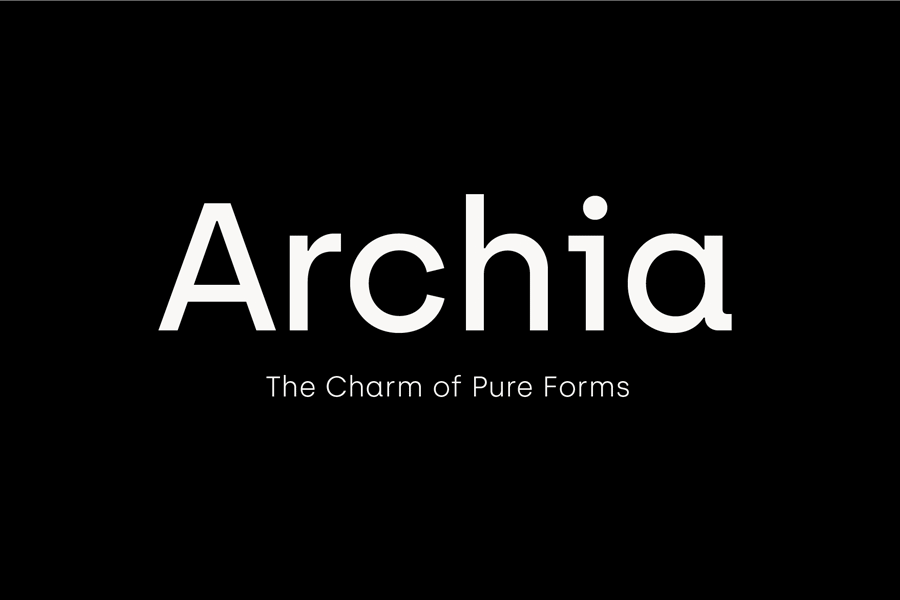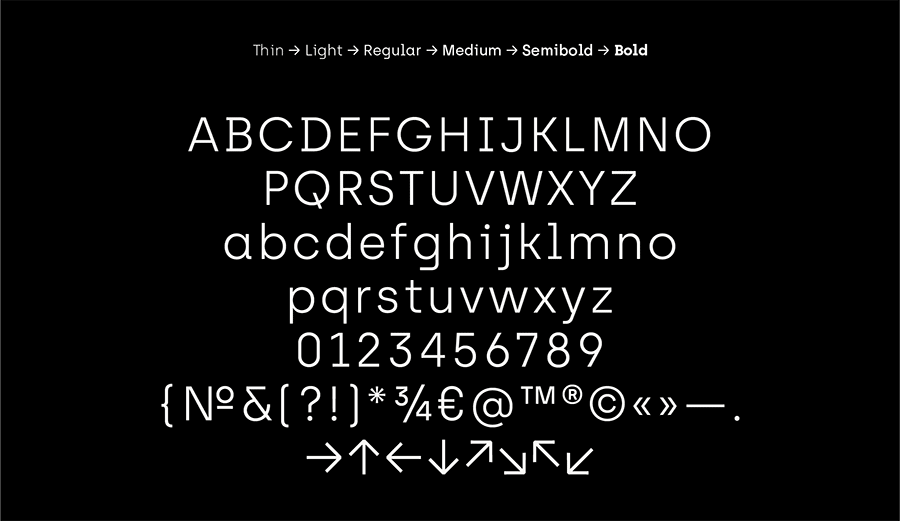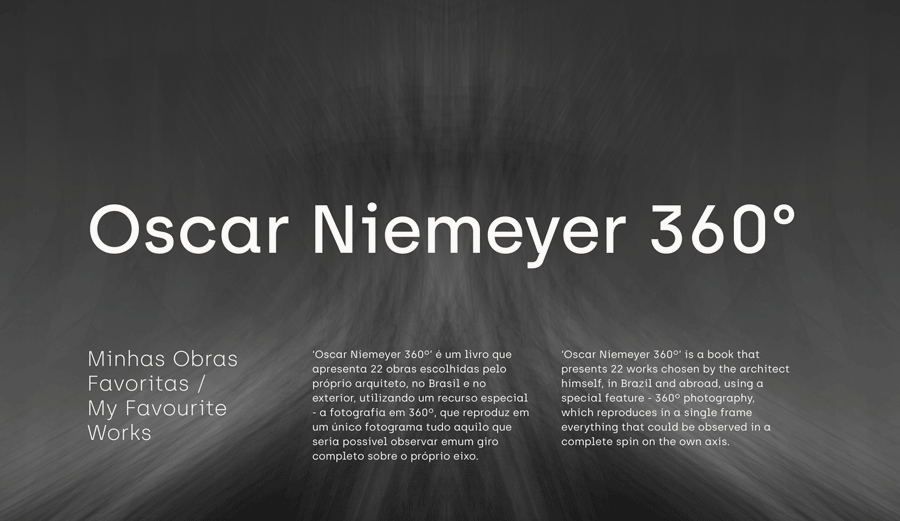
Archia is the latest font from Atipo Foundry that marries geometrical sans serif shapes with tech flavor. The result is a font family that comes with 6 weights and it has the modern yet classic, rigid yet elegant vibe to it. Archia font is perfect for logotypes, branding, environmental designs and more.
- Designer: Atipo Foundry
- Category: Sans Serif